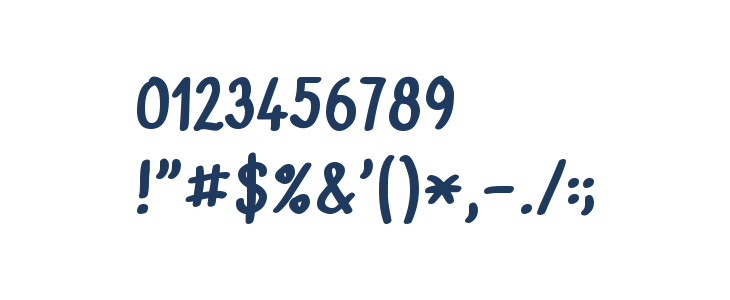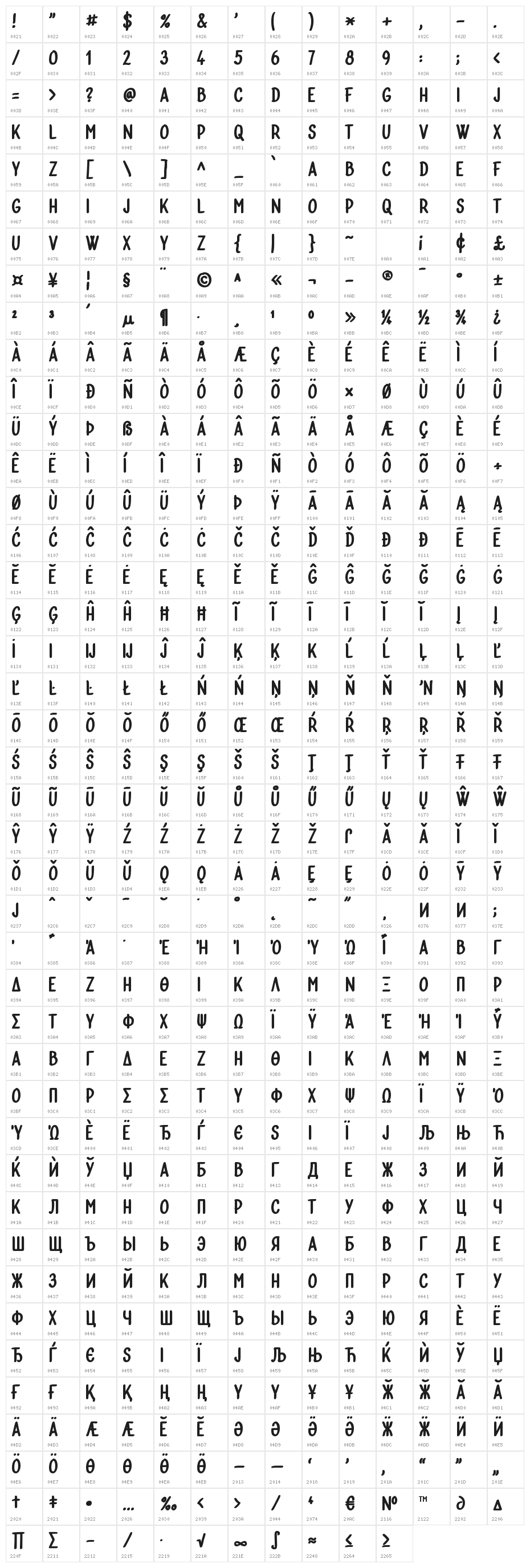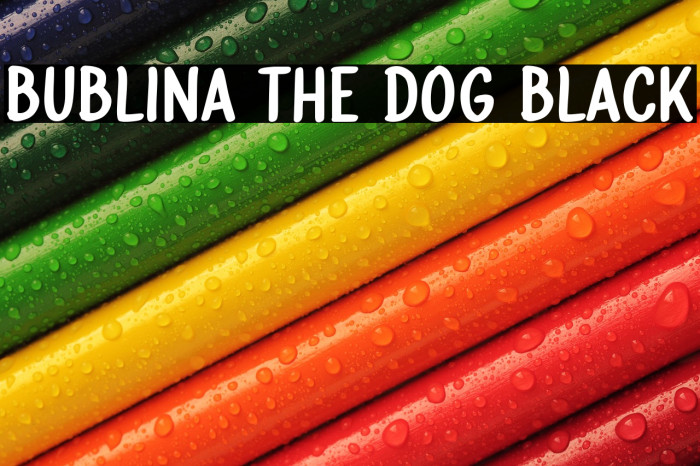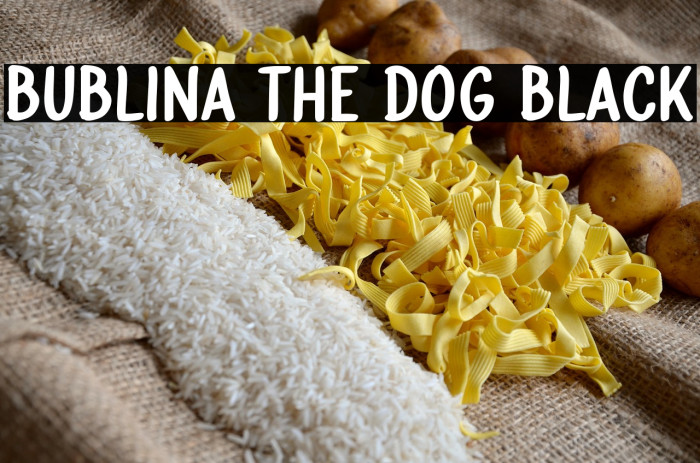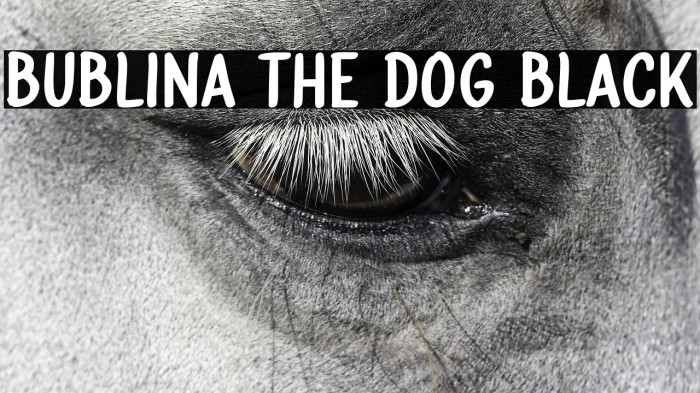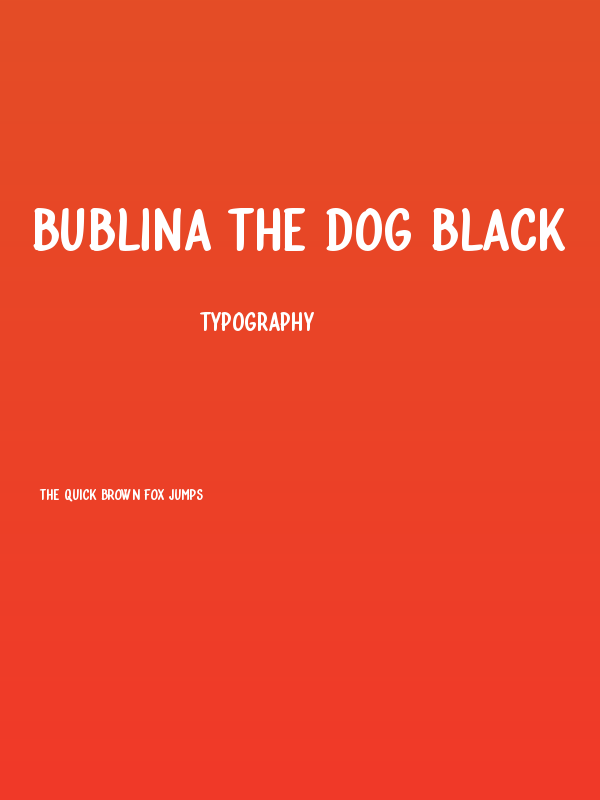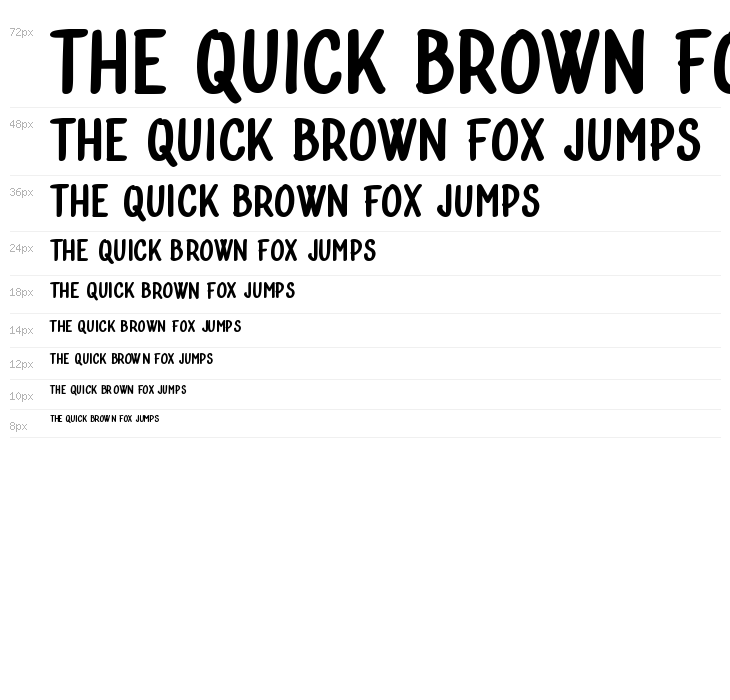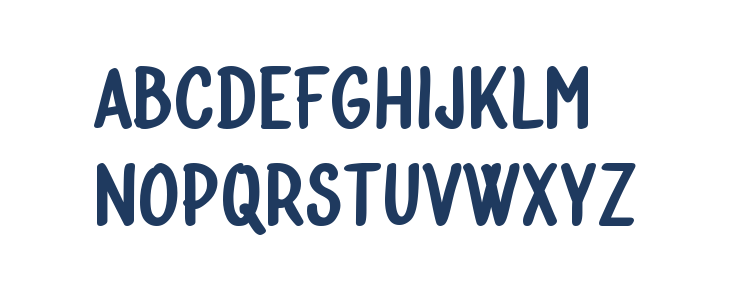
Bublina the Dog Black Font
Bublina the Dog Black Description
This font features a playful and bold style with rounded edges and a hand-drawn appearance. The uppercase and lowercase letters maintain a consistent thickness, giving it a cohesive look. The characters are slightly condensed, which adds to its quirky and fun aesthetic. The numerals and special characters follow the same design principles, ensuring uniformity across all glyphs. This font's informal and friendly vibe makes it ideal for projects that require a touch of whimsy and approachability.
| Proposed Projects | Ideal for children's books, playful branding, greeting cards, and social media graphics. |